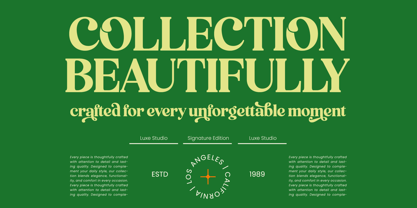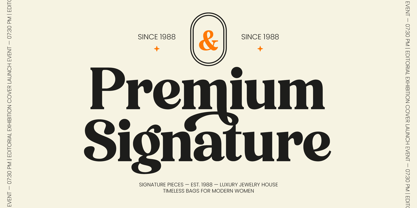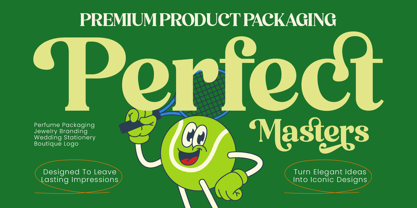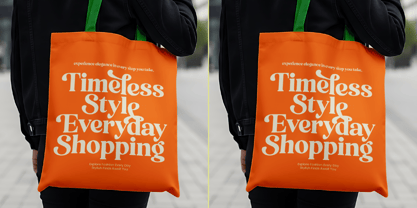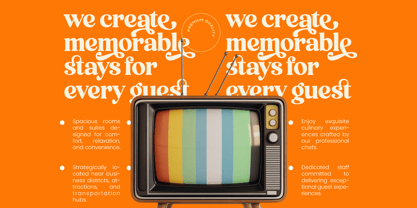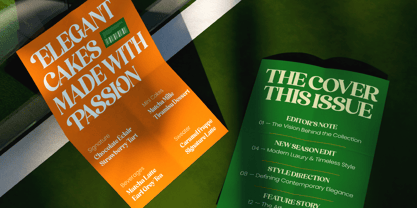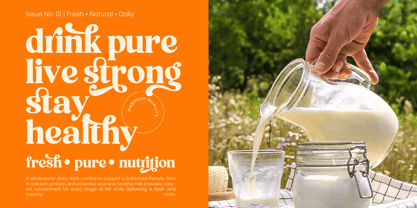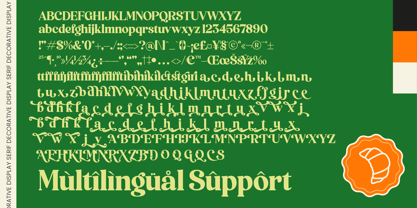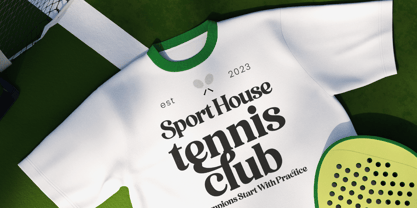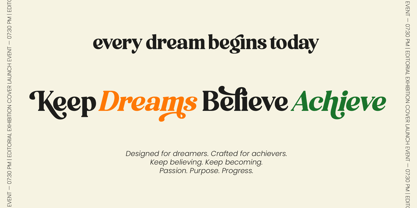
Perfect Masters
Experience the ultimate blend of elegance and precision with Perfect Masters, a font designed to command attention and leave a lasting impression on every viewer. This decorative display serif bridges the gap between classic sophistication and modern creative flair for a truly unique aesthetic.
Inspired by the prestigious atmosphere of elite tennis clubs and the golden era of mid-century editorial layouts, this typeface evokes a sense of nostalgic luxury. Every curve and swash is meticulously crafted to reflect the grace and power of a championship match, bringing a spirited energy to your canvas.